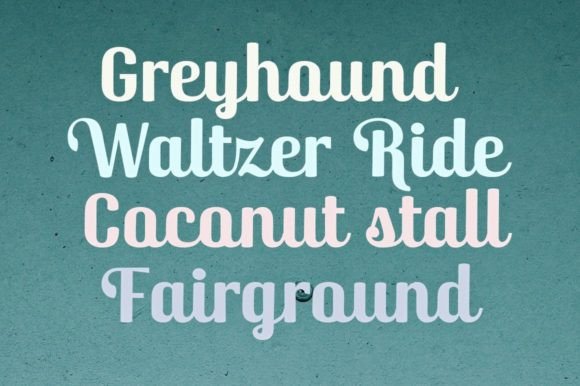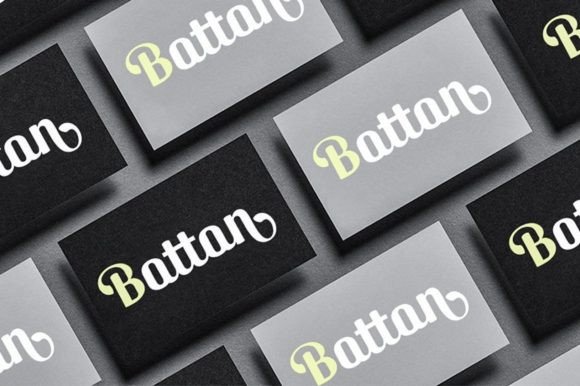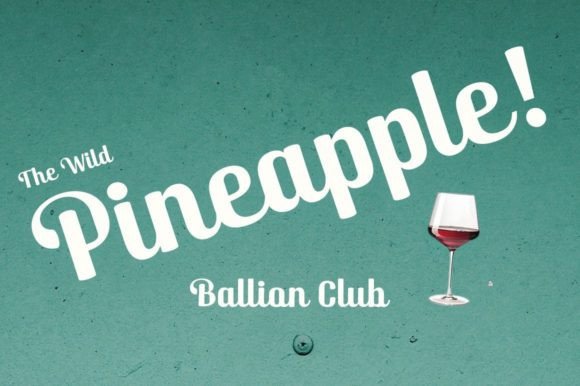
Analisa Font: A Whimsical Display Font for Vintage & Cute Designs!
About the Analisa Font
Elevate your designs with Analisa Font, a font that combines sophistication with readability. Analisa is a special modern display font. Crafted with pinpoint accuracy, it will make your creative work special. It is perfect for watercolor designs or bold handwriting styles, blog headers, branding, T-shirts, logos, greeting cards, titles, packaging, wedding designs, social media posts, product design, stationery, advertising, clothing, book covers, business cards, merchandise, handmade invitations, quotes, and many more. This font is PUA encoded, which means you can access all of the glyphs and swashes with ease!
Analisa Font Usage Examples
Analisa Font Example